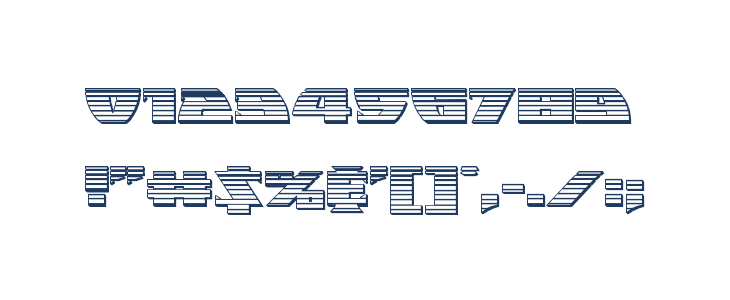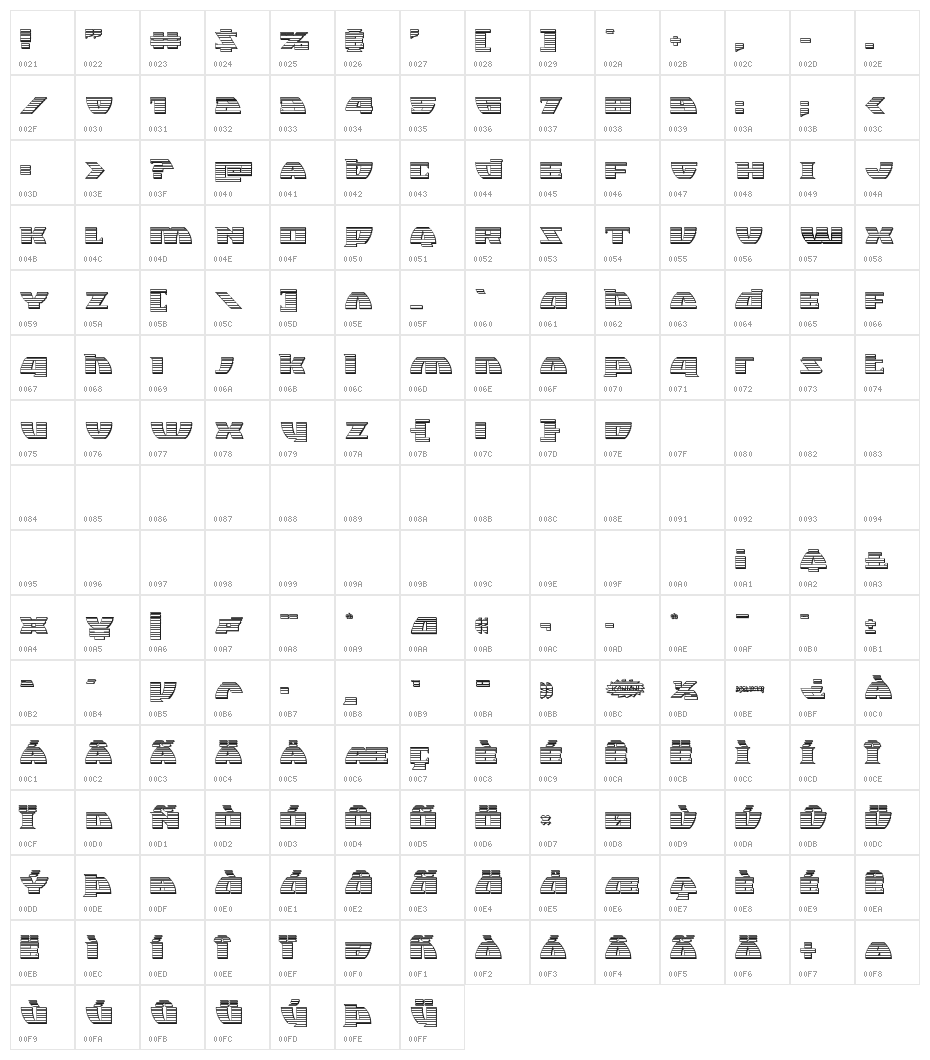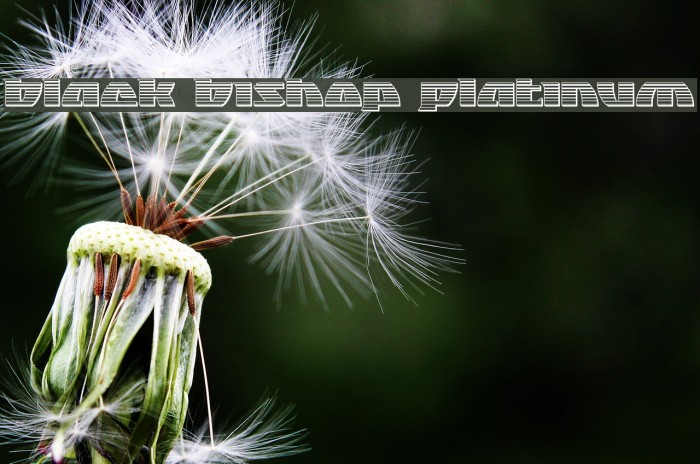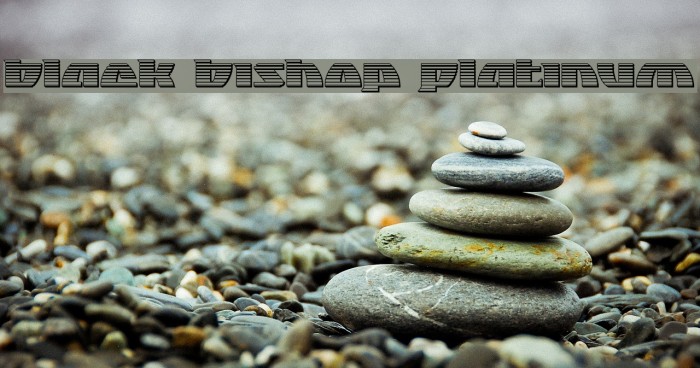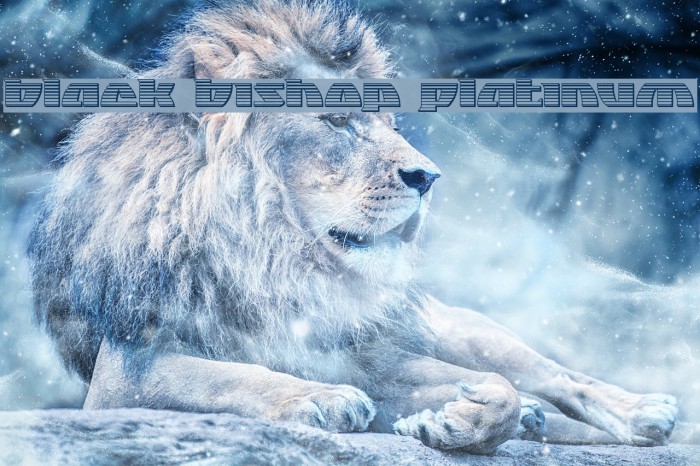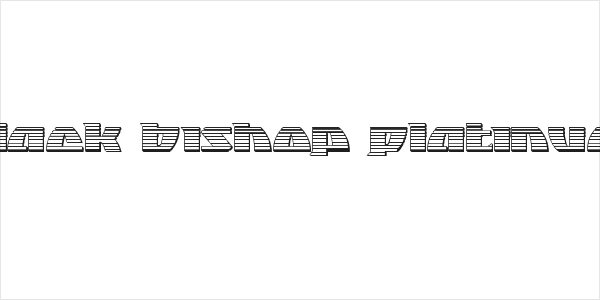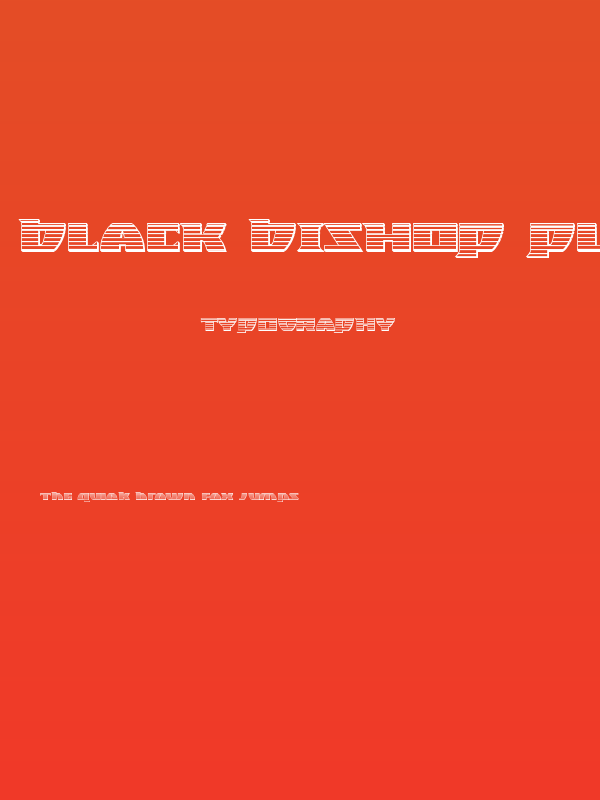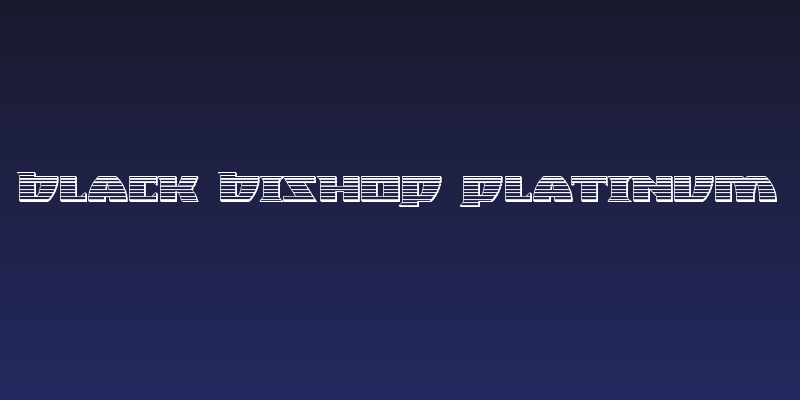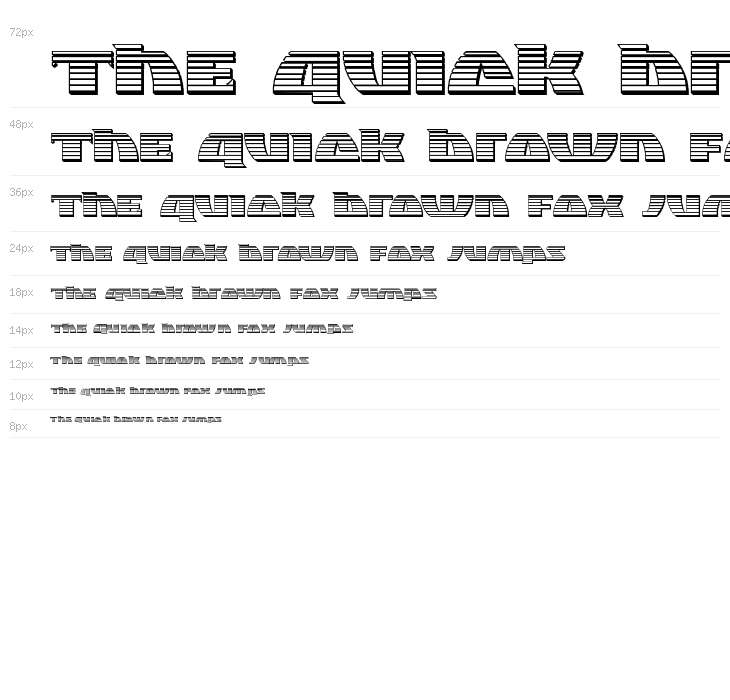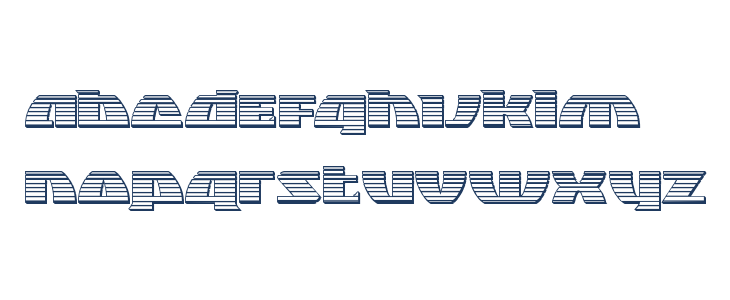
Black Bishop Platinum Font
Black Bishop Platinum Description
This font features a bold, geometric design with a distinct striped pattern running horizontally across each character. The uppercase and lowercase letters maintain a consistent width, creating a uniform appearance. The numerals and special characters follow the same design principles, ensuring cohesion across all elements. The font's unique style is both eye-catching and modern, making it suitable for projects that require a strong visual impact. The striped pattern adds a layer of complexity, giving the font a dynamic and energetic feel.